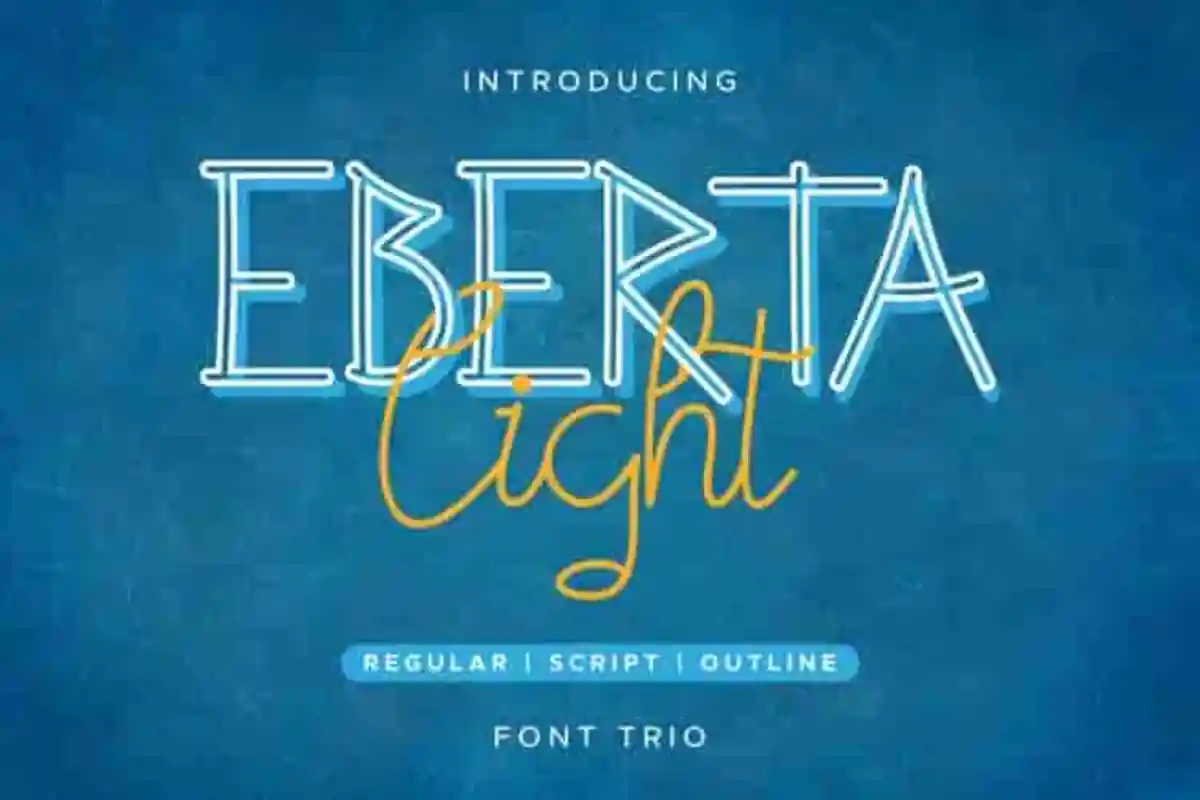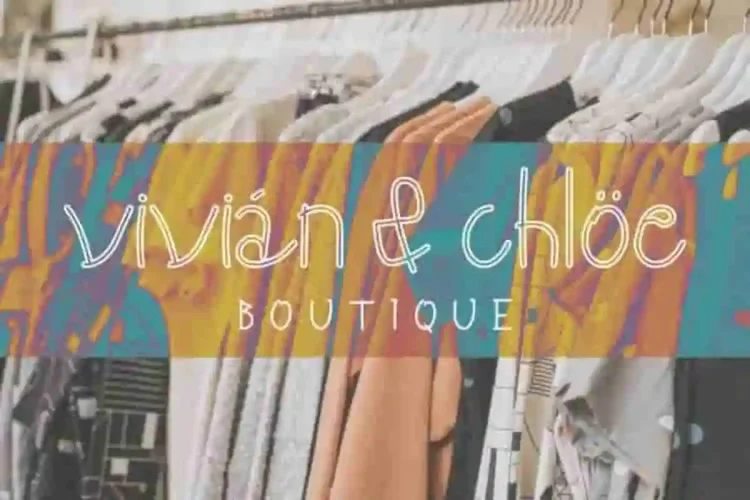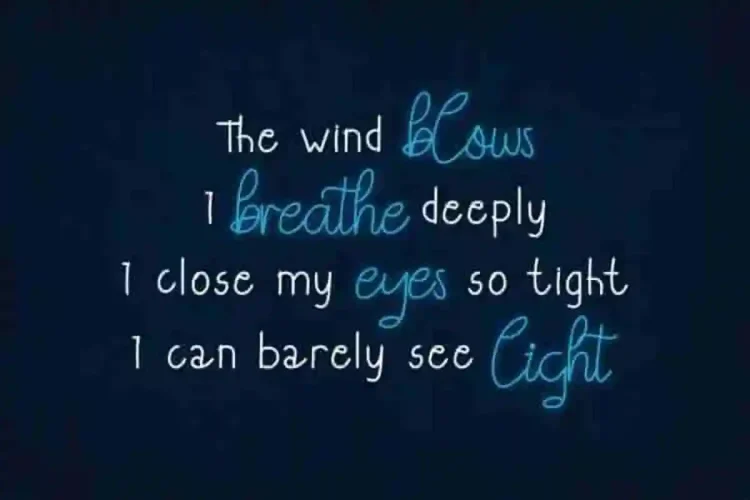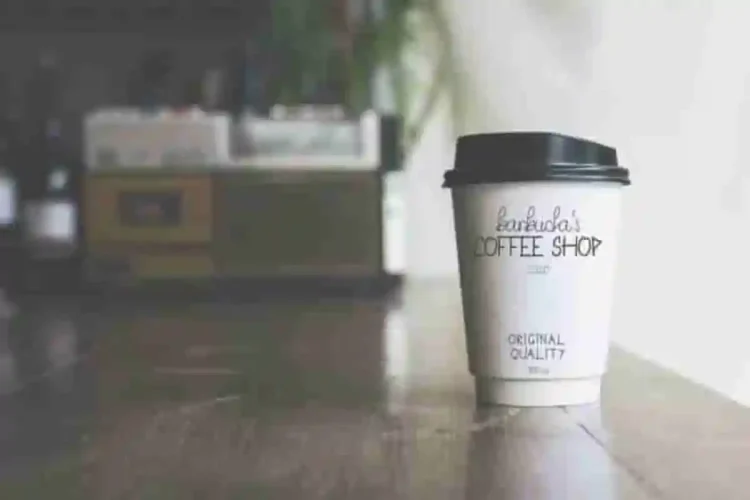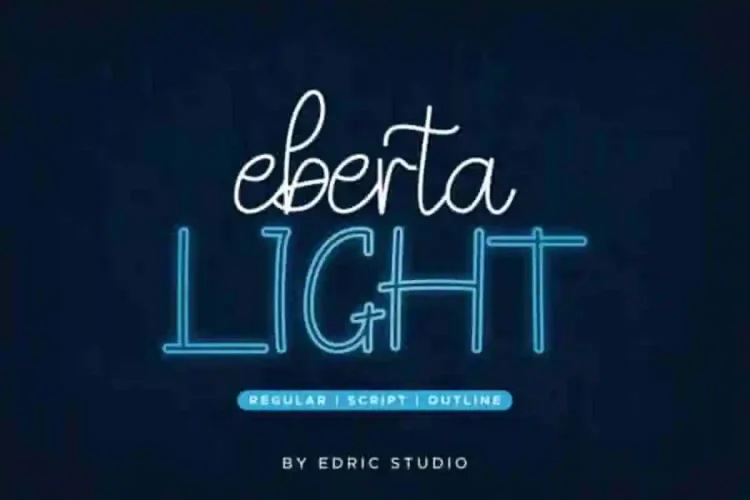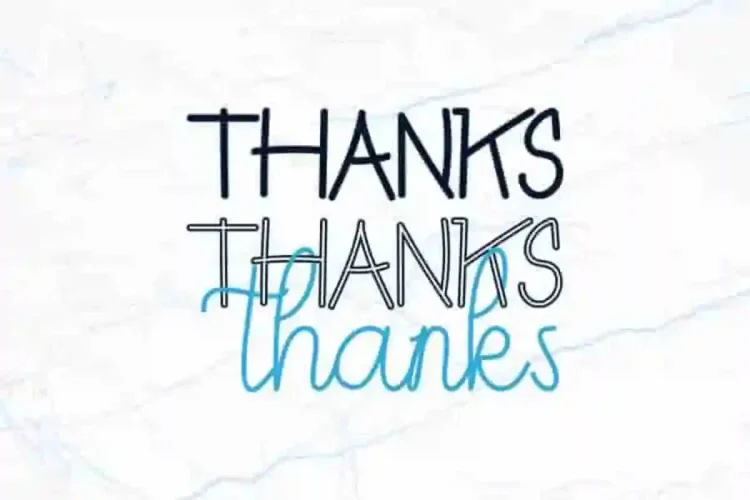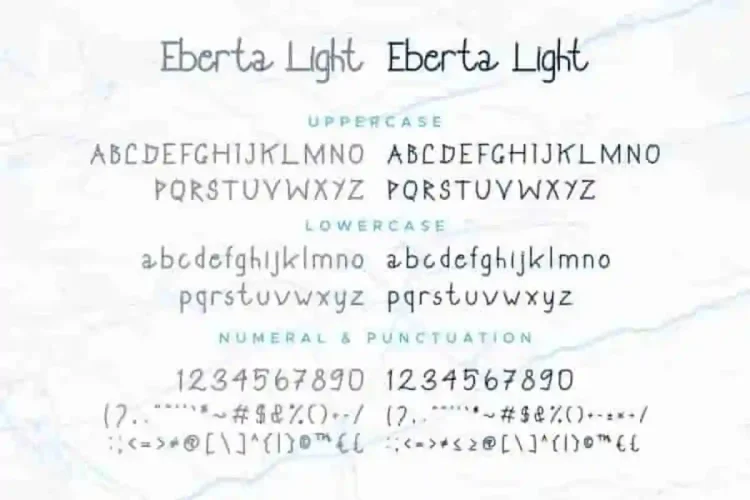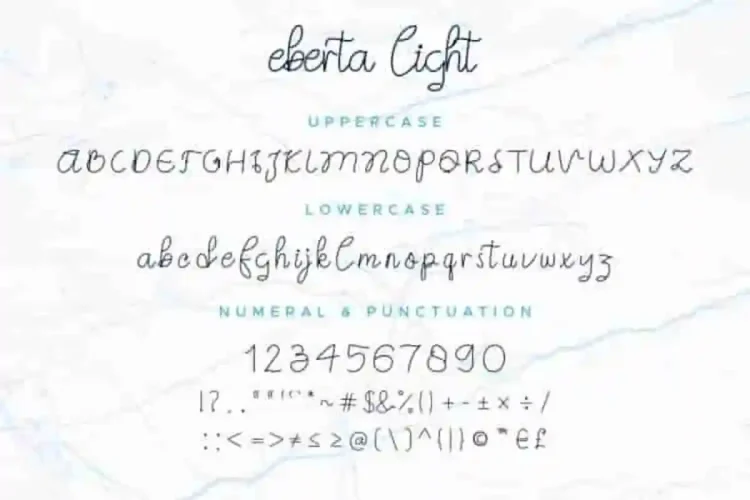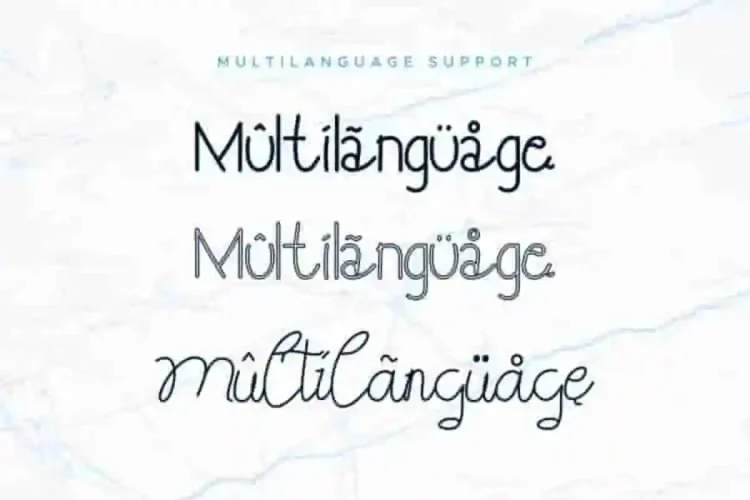
Eberta Light Signature Font Duo
This is a Font Trio Family, handcrafted from our Studio here in Indonesia. The artists/designers of this beautiful tyeface are Yasri and Suci Sarah.
Eberta Light Signature Font Duo is an exclusive font family with two different styles. This font has a stunning characters set, perfectly managed with well spaced and kerning. The theme style of this font will elegant,  vintage, stylish, sophisticated and classic brush calligraphic style.
Eberta Light Signature Font Duo will be great for any projects including : branding, logo, stationery, business card, signage, flyer, brochure etc. Almost all industries will be match for this typeface: wedding, events, real estate, architect, law firm, florist, gardening, makeup artist, travel, hotel, musician etc.